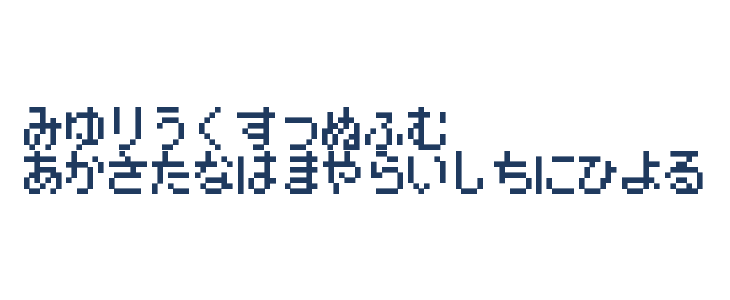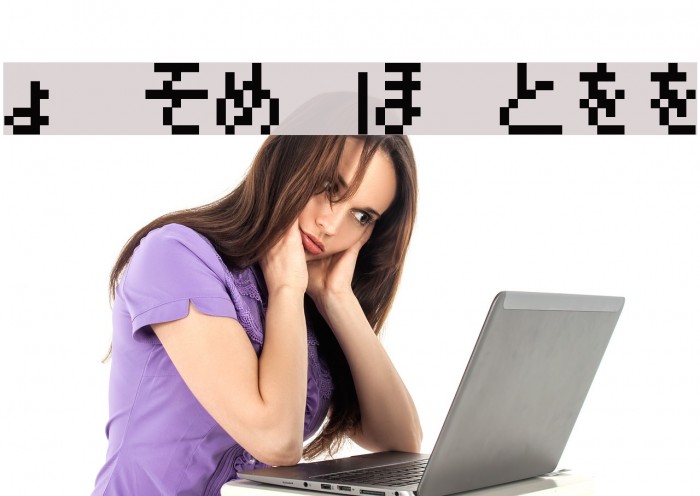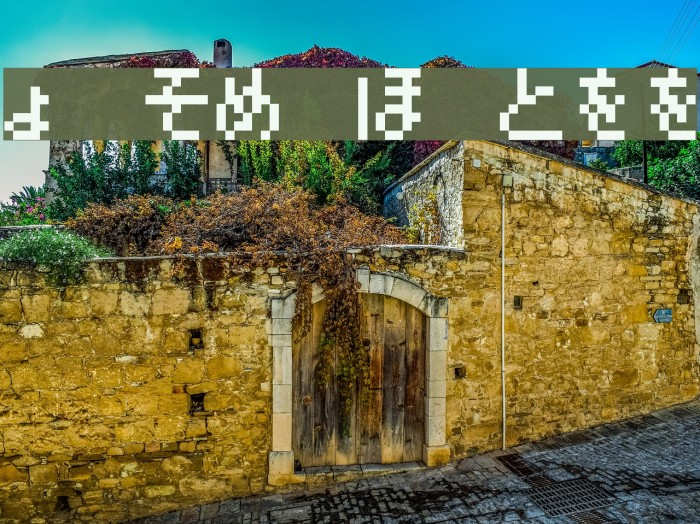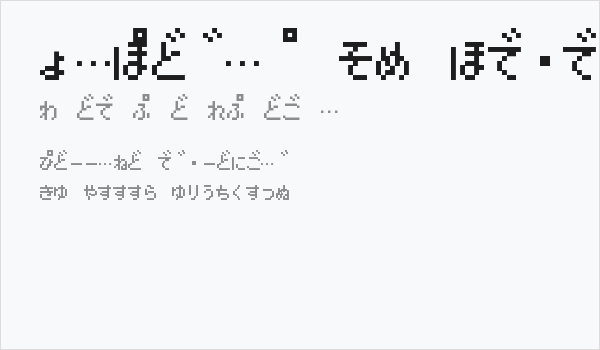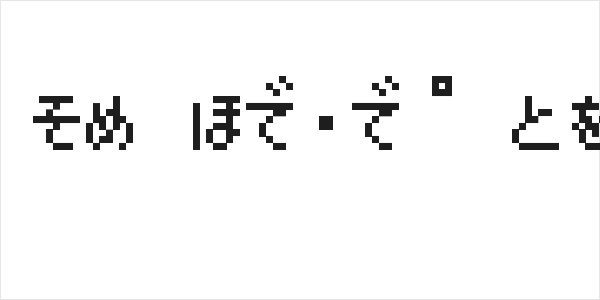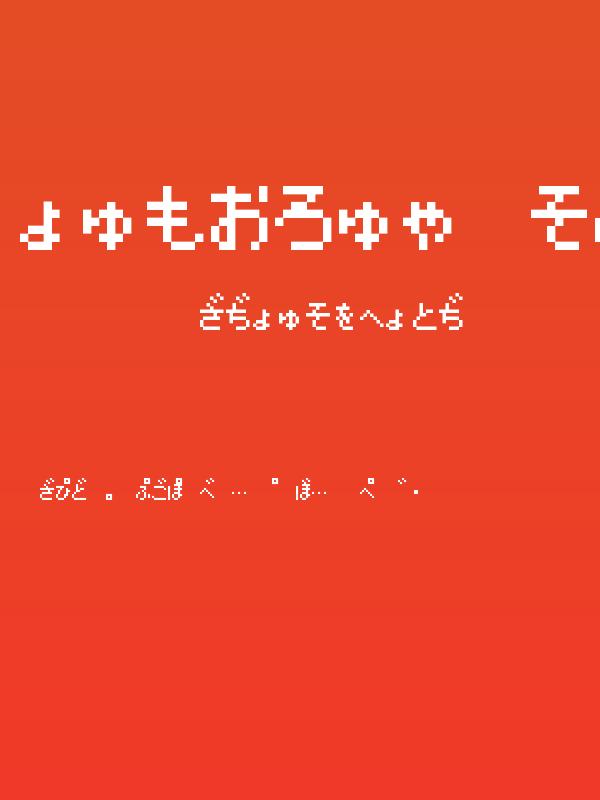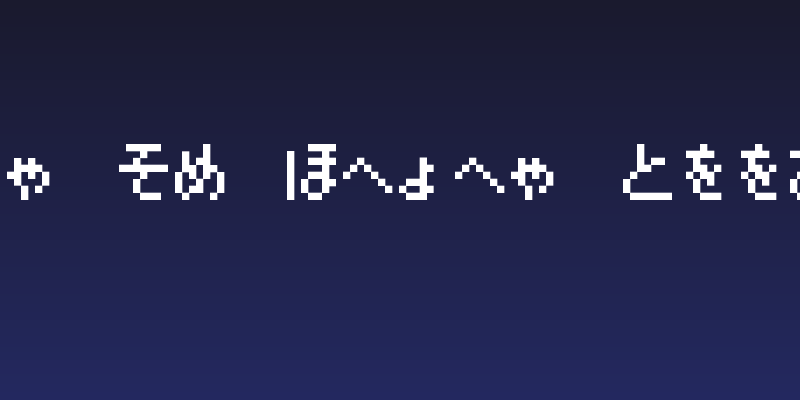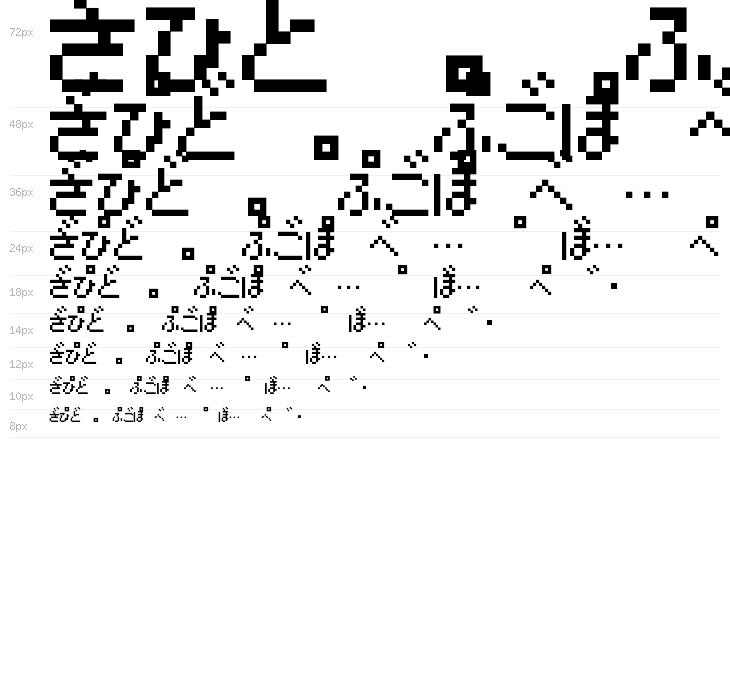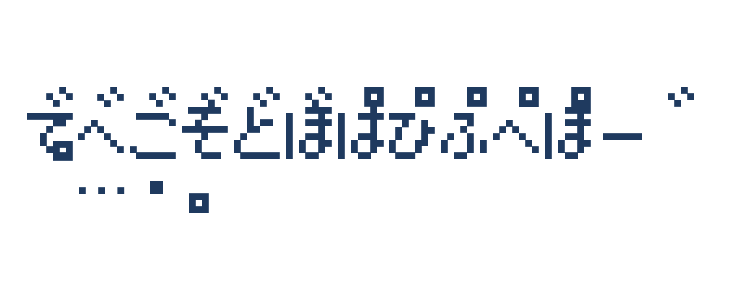
Pokemon GB Japan HRRegular Font
Pokemon GB Japan HRRegular Description
This font is a pixelated, retro style reminiscent of early video game graphics. It features a blocky, grid-like structure, with each character appearing as if composed of small squares. The font captures a nostalgic, 8-bit aesthetic, commonly associated with classic gaming consoles. Its design is simplistic yet effective, providing clear readability despite its pixelated nature. The characters are evenly spaced and maintain a consistent height, contributing to a uniform appearance. This style is particularly effective for evoking a sense of nostalgia and is ideal for projects that aim to capture the essence of vintage digital art.
| Use Case | Logos, Headlines, Digital Art |
| Proposed Projects | Ideal for retro-themed video games, nostalgic digital art, and vintage-inspired graphic design projects. |